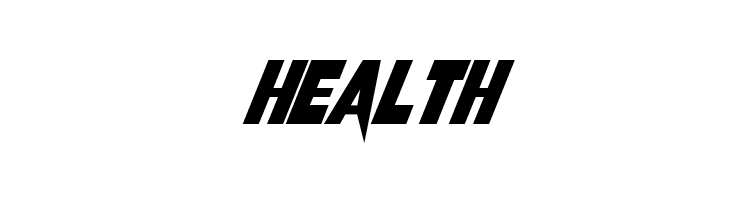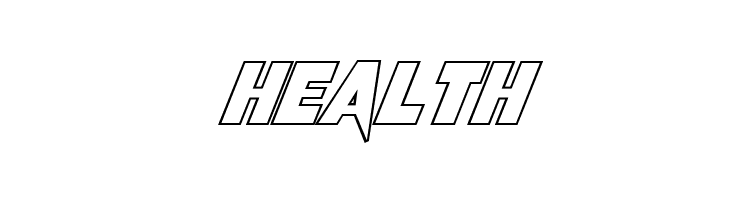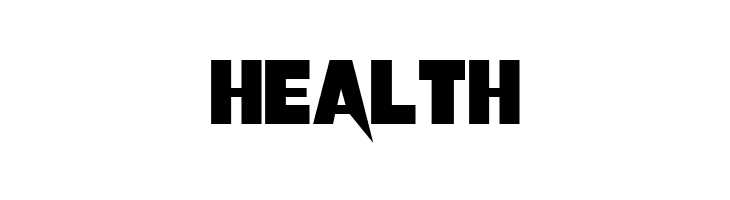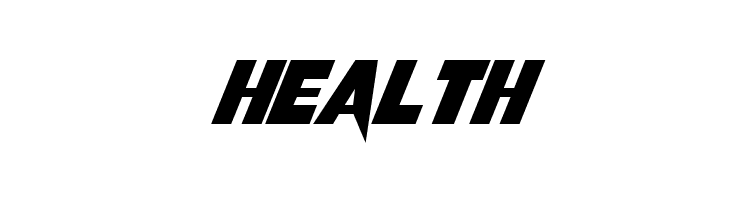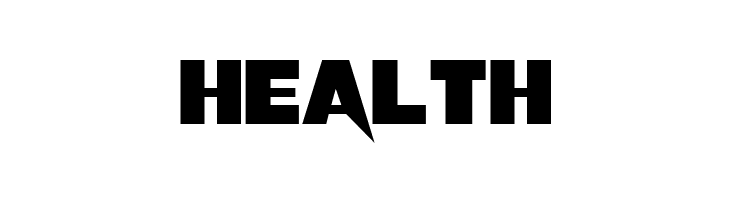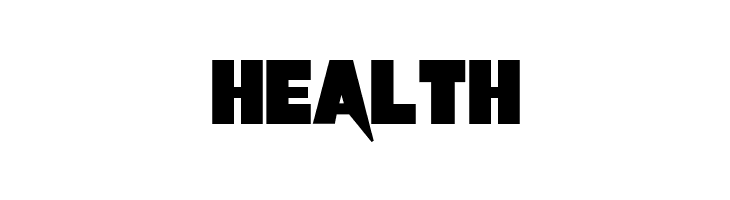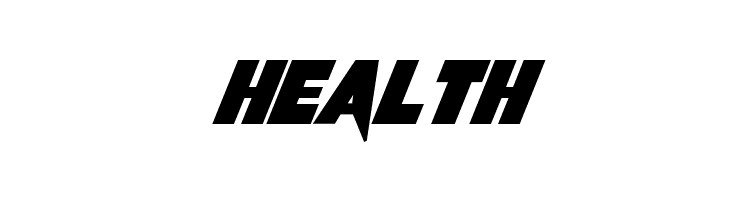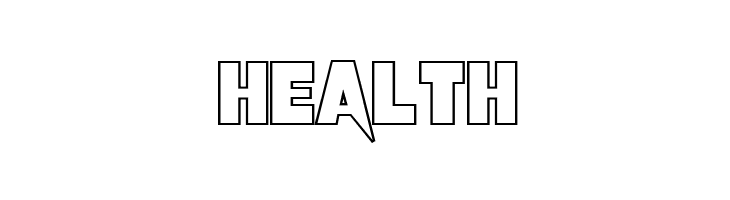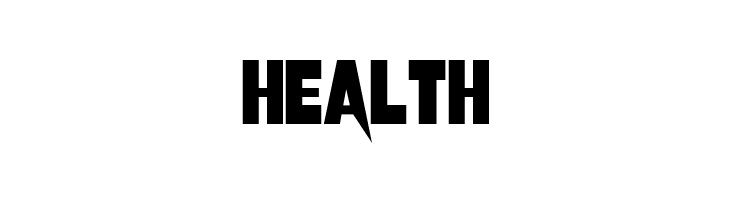
Pistoleer Expanded Italic Font
Font by Daniel Zadorozny - www.iconian.com
A bold, expanded, and italicized font with sharp angles and high contrast.
Pistoleer Italic Font
Font by Daniel Zadorozny - www.iconian.com
A bold, italic typeface with sharp, angular lines and a modern, energetic style.
Pistoleer Condensed Italic Font
Font by Daniel Zadorozny - www.iconian.com
A bold, condensed, and italic font with sharp, angular edges and a modern, dynamic style.
Pistoleer Bold Italic Font
Font by Daniel Zadorozny - www.iconian.com
A bold, italicized font with sharp angles and high contrast, perfect for dynamic designs.
Pistoleer Rotalic Font
Font by Daniel Zadorozny - www.iconian.com
A bold, italicized font with sharp, angular edges and a dynamic, futuristic style.
Pistoleer Regular Font
Font by Daniel Zadorozny - www.iconian.com
A bold, angular font with sharp edges and a dynamic style.
Pistoleer Bold Font
Font by Daniel Zadorozny - www.iconian.com
A bold, angular font with sharp edges and a strong geometric style.
Pistoleer Condensed Font
Font by Daniel Zadorozny - www.iconian.com
A bold, angular, and condensed font ideal for striking headlines.
Pistoleer Laser Italic Font
Font by Daniel Zadorozny - www.iconian.com
A bold, italicized font with sharp, angular edges and a futuristic style.
Pistoleer Expanded Font
Font by Daniel Zadorozny - www.iconian.com
A bold, angular font with a futuristic and dynamic design.
Pistoleer Leftalic Font
Font by Daniel Zadorozny - www.iconian.com
A bold, angular font with a leftward slant and dynamic, energetic style.
Pistoleer Outline Italic Font
Font by Daniel Zadorozny - www.iconian.com
A bold, italic outline font with a dynamic and modern style.
Pistoleer 3D Regular Font
Font by Daniel Zadorozny - www.iconian.com
A bold, 3D outlined font with sharp, angular edges and a modern, futuristic style.
Pistoleer 3D Italic Font
Font by Daniel Zadorozny - www.iconian.com